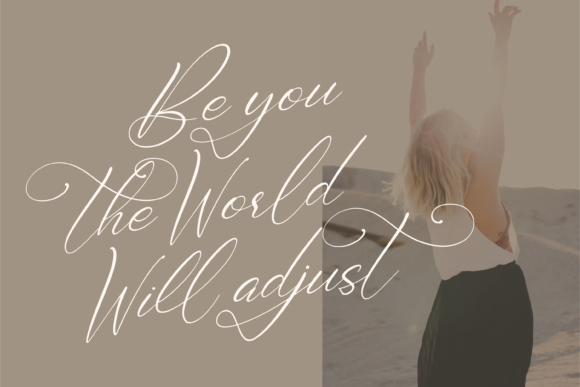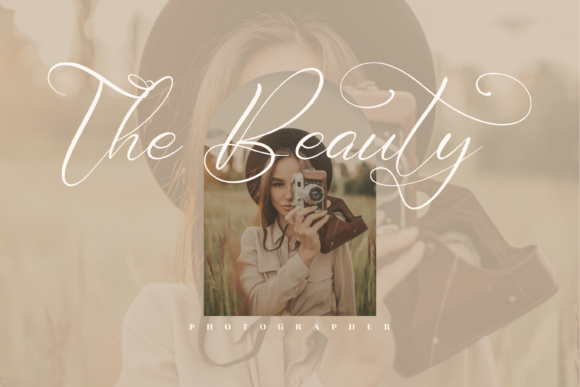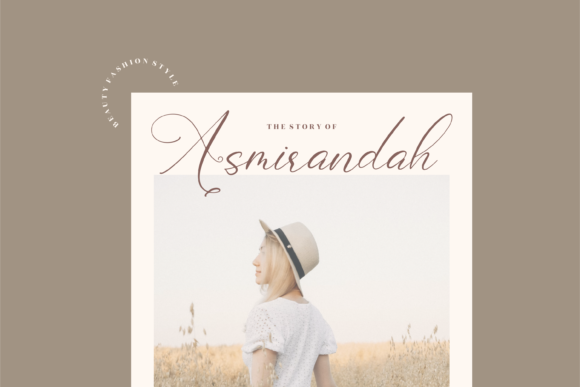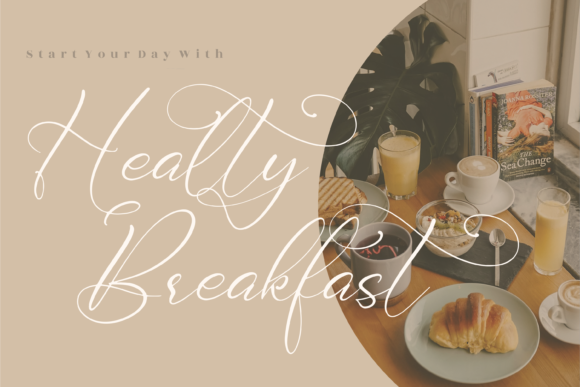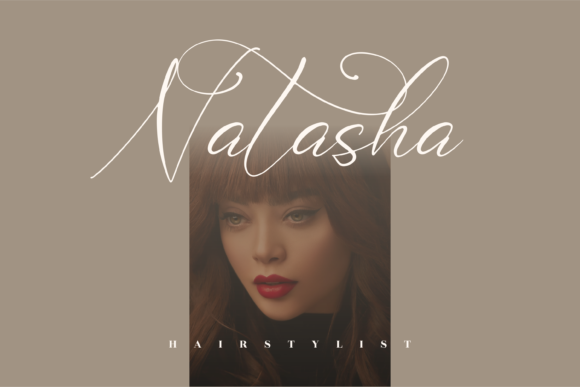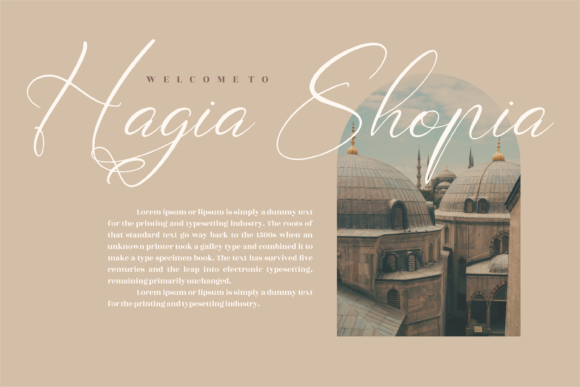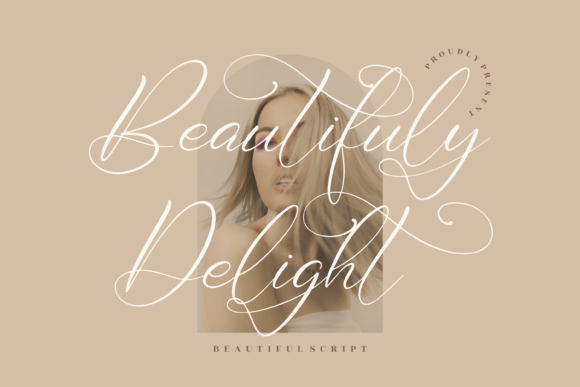
Introducing Beautifully Delight Font: Elevate Your Designs with Elegance
Are you on the hunt for a font that can add a touch of sophistication and charm to your design projects? Look no further than Beautifully Delight Font. This stunning script font is perfect for designers and crafters seeking to infuse their work with a sense of luxury and refinement. In this article, we’ll dive into the world of Beautifully Delight Font, exploring its features, uses, and benefits, as well as provide tips on how to make the most of this beautiful font.
A Versatile Font for a Wide Range of Projects
Beautifully Delight Font is an incredibly versatile script font that can be used for a vast array of projects. Whether you’re working on logos, branding projects, homeware designs, product packaging, or any other creative endeavor, this font is sure to impress. Its elegant and flowing script makes it an ideal choice for:
- Logos and branding projects: Create a lasting impression with a custom logo that exudes sophistication and style.
- Homeware designs: Add a touch of elegance to your home decor with Beautifully Delight Font.
- Product packaging: Make your products stand out on store shelves with beautiful and eye-catching packaging.
- Mugs, quotes, posters, shopping bags, t-shirts, book covers, name cards, invitation cards, and greeting cards: The possibilities are endless!
Perfect for Labels, Photography, and Special Events
Beautifully Delight Font is not just limited to the projects mentioned above. Its versatility also makes it a perfect fit for:
- Labels: Add a touch of elegance to your product labels or any other type of label.
- Photography: Use Beautifully Delight Font as a watermark to add a professional touch to your photos.
- Special events: Create stunning invitations, programs, or other materials for weddings, parties, and other special occasions.
Why Choose Beautifully Delight Font?
So, what sets Beautifully Delight Font apart from other script fonts on the market? Here are just a few reasons why designers and crafters love this font:
- Elegant and refined: Beautifully Delight Font features a beautiful, flowing script that adds a touch of sophistication to any design.
- Highly versatile: This font can be used for a wide range of projects, from logos and branding to homeware designs and special events.
- Easy to read: Despite its elegant and cursive nature, Beautifully Delight Font is surprisingly easy to read, making it perfect for body text and headlines.
Tips for Using Beautifully Delight Font
Now that you know a bit more about Beautifully Delight Font, here are some tips for using it effectively in your designs:
- Pair it with contrasting fonts: Beautifully Delight Font pairs beautifully with sans-serif fonts, such as Arial or Helvetica, to create a striking contrast.
- Experiment with colors: This font looks stunning in a range of colors, from metallic gold and silver to rich jewel tones.
- Don’t be afraid to get creative: Beautifully Delight Font is a versatile font that can be used in a variety of creative ways, so don’t be afraid to experiment and try new things.